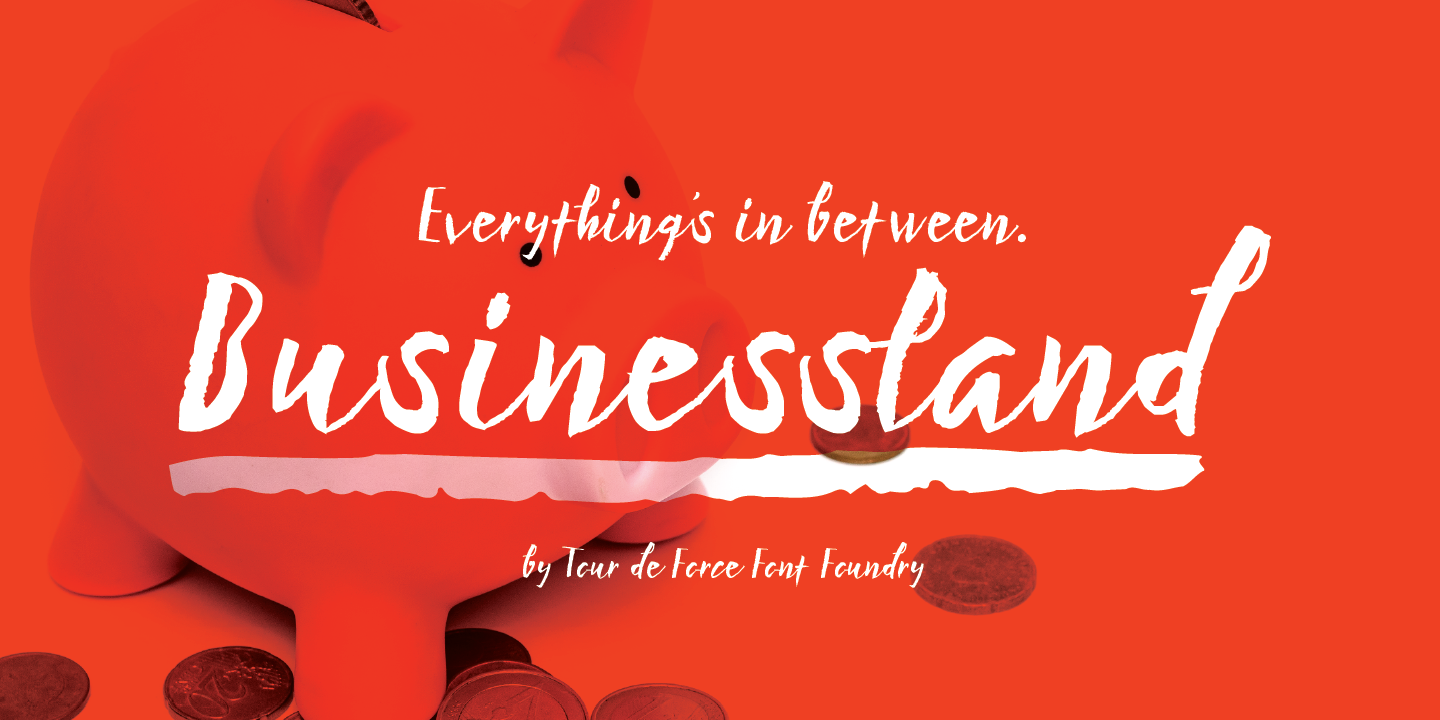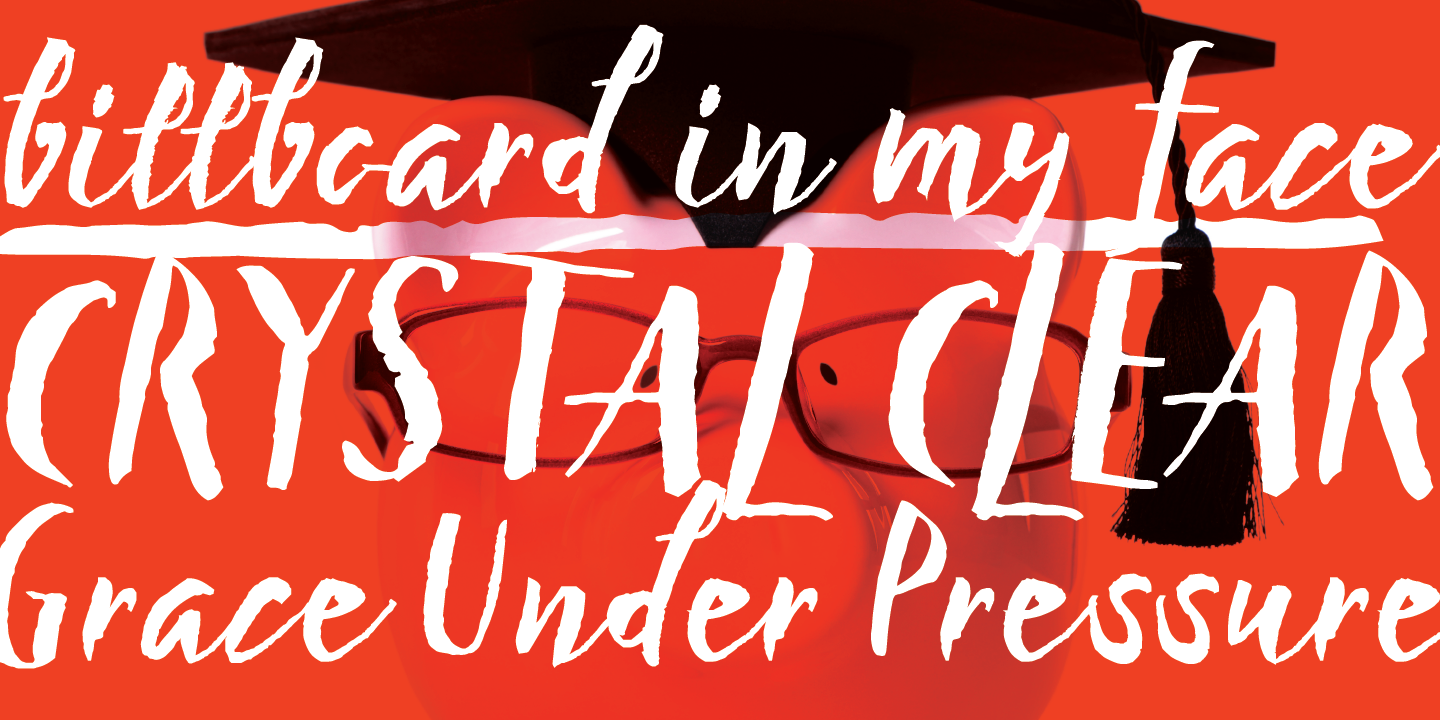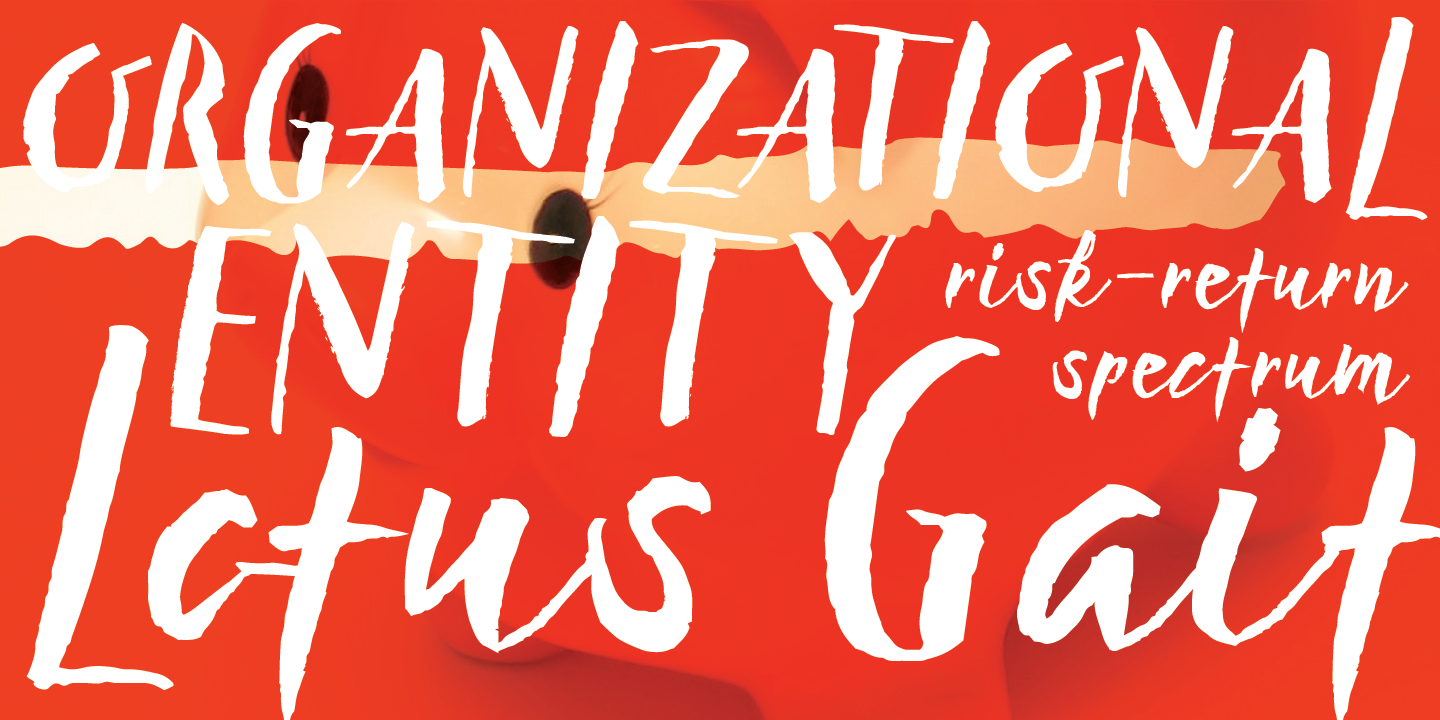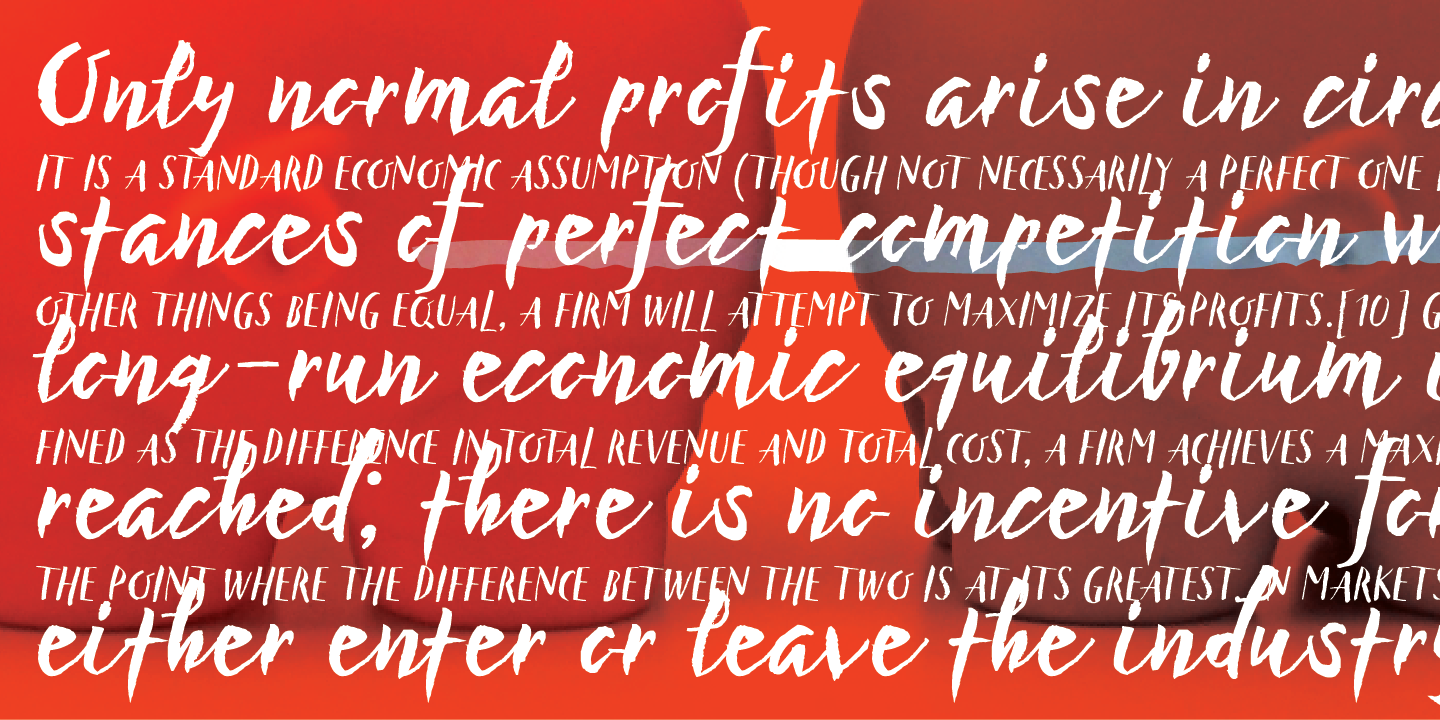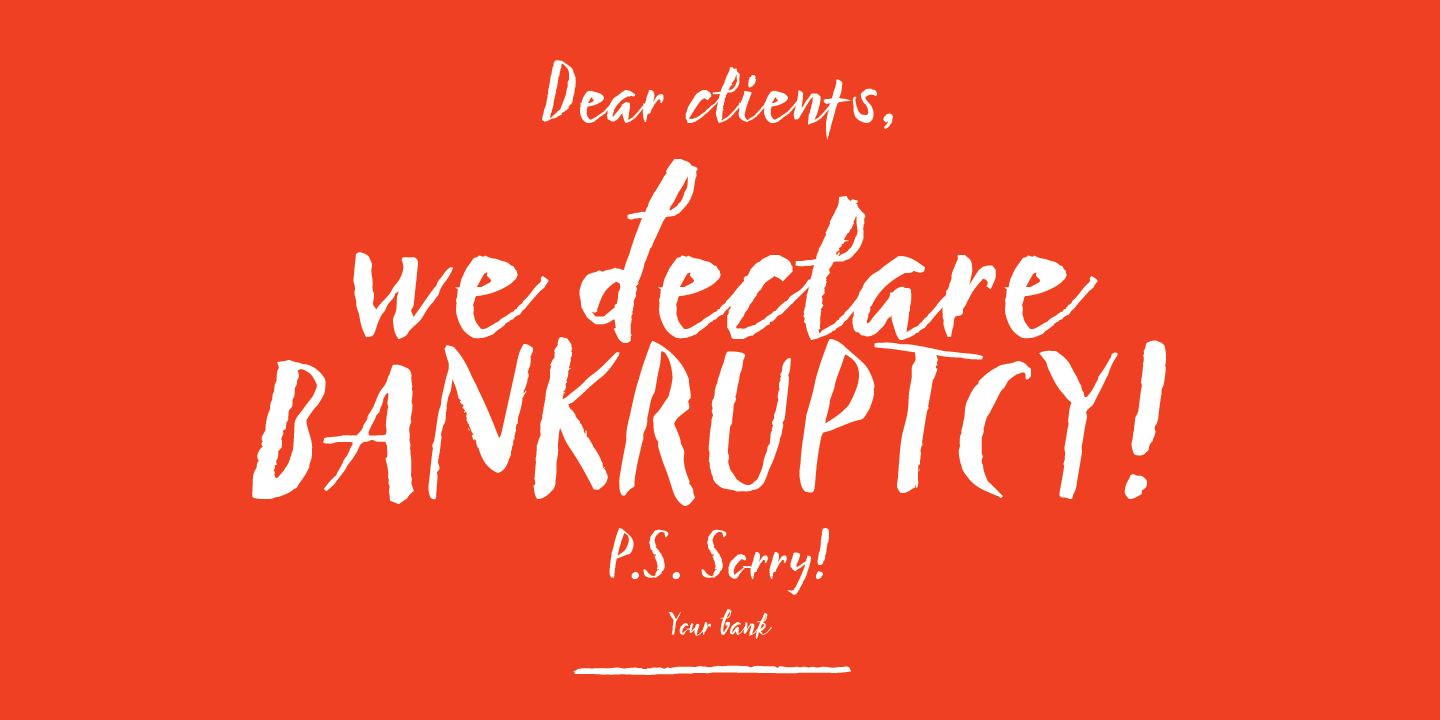
Businessland is script family that combines elegant and rough look of the characters. Contains 372 glyphs including codepage support for Eastern Europe and Baltic countries.